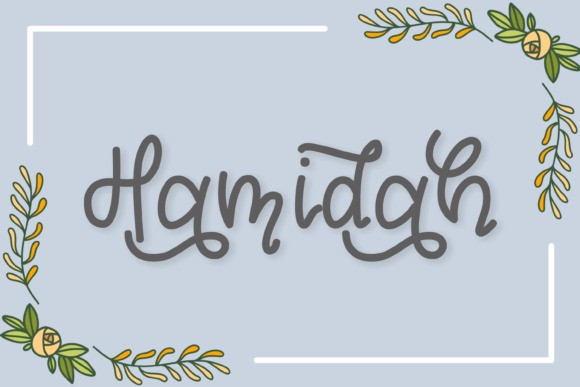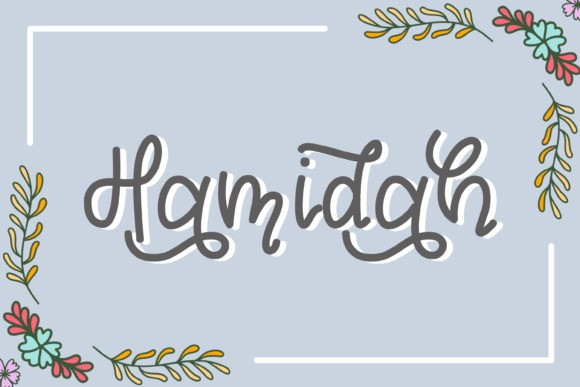
Hamidah Script Font
Hamidah is a flowing handwritten font, described by an elegant touch, perfect for your favorite projects. Fall in love with its incredibly distinct and timeless style and use it to create spectacular designs!